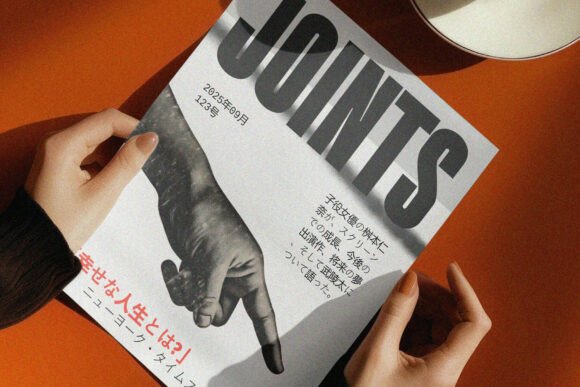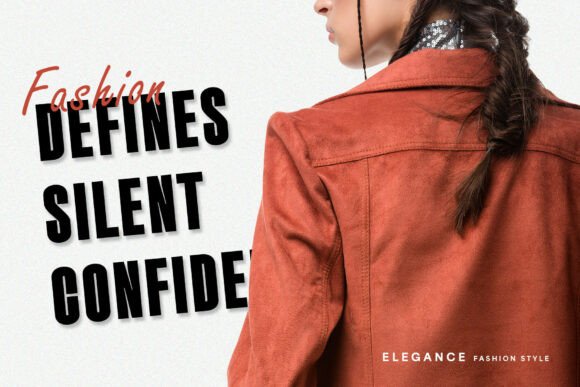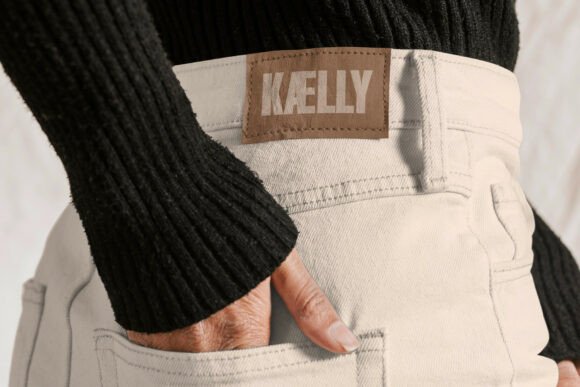
Introduction to Rangely Font
Have you ever been stuck on a design project, staring at a blank screen, and wondering how to bring your creative vision to life? It’s a feeling we’ve all experienced at some point in our design journey. For me, it was when I was working on a branding project for a new startup. I needed a font that would convey sophistication, elegance, and a touch of modernity. That’s when I discovered the Rangely Font – a game-changer that has since become my go-to design resource.
As designers, we’re constantly on the lookout for high-quality fonts that can elevate our work and communicate our message effectively. The Rangely Font delivers on all fronts, offering a perfect blend of classic charm and contemporary minimalism. Its clean lines, balanced proportions, and transparent background make it an ideal choice for creative projects, from branding and headlines to editorial design and striking visual communications.
With its multilingual support and free download options, the Rangely Font is a valuable addition to any designer’s toolkit. Whether you’re working on a high-stakes project or just experimenting with new ideas, this font is sure to deliver – and with style.
Key Features of Rangely Font
- Rangely Font is a high-quality design resource ideal for creative projects, offering a unique blend of modern and vintage elements.
- The font features a transparent background, making it easy to use on various backgrounds and designs.
- Rangely Font is a high-resolution font, available in a range of sizes, from 12 to 72 points, making it suitable for various design applications.
- The font features a clear and legible design, making it perfect for use in logos, typography, and other creative projects.
- The Rangely Font is a versatile design resource that can be used for a wide range of creative projects, from branding and marketing materials to digital art and design.
Honest Review: Rangely Font
I recently stumbled upon the Rangely Font, and I’m excited to share my honest review with fellow designers. This free download has been a game-changer for my creative projects, offering a unique blend of elegance and playfulness.
What works well: ✨ The Rangely Font is incredibly versatile, suitable for a wide range of design applications, from branding and marketing materials to digital products and publications. Its high quality is evident in the crisp lines, precise letterforms, and extensive character set. The transparent background also makes it easy to combine with other design elements.
However, there are a few limitations to consider: ⚠️ The Rangely Font may not be ideal for situations requiring a more formal or traditional typography. Additionally, some users might find the font’s unique characteristics too playful or unconventional for certain projects.
Overall, I’m thoroughly impressed with the Rangely Font. Its high quality, versatility, and affordability make it a valuable addition to any designer’s toolkit. If you’re looking for a fresh and creative design resource, I highly recommend giving it a try.
Rangely Font
The Rangely Font is a versatile and high-quality design resource perfect for creative projects. With its clean and modern aesthetic, it’s ideal for use in various applications, including Canva, Adobe Photoshop/Illustrator, and PowerPoint/Word.